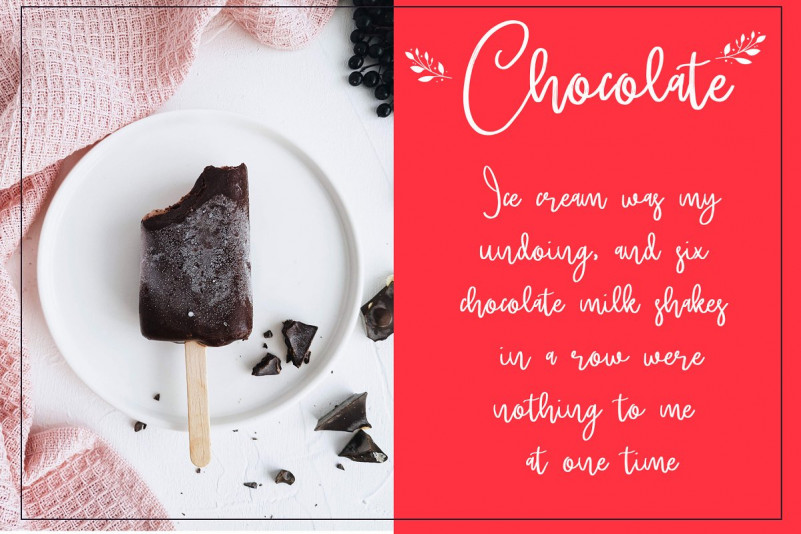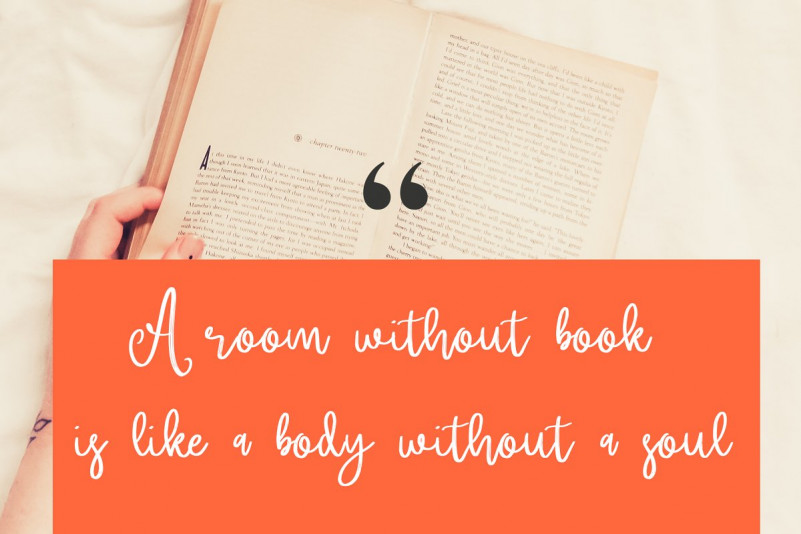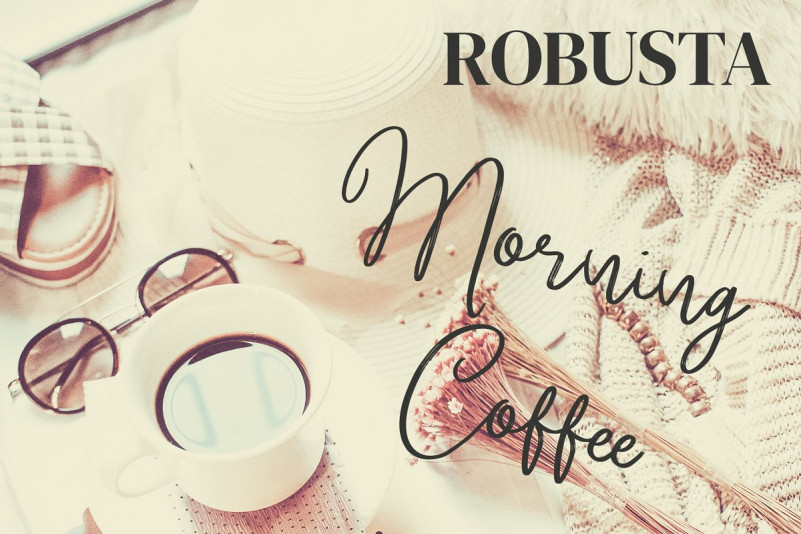
Brittney Script Font
Brittney Script – Demo Font
This is a romantic and modern calligraphy, ready to give your design a fresh and fabulous Style. Introducing Brittney Font. It’s a lovely modern calligraphy font. It’s combining the classic look of calligraphy with a more modern style.
Brittney is perfect for branding projects, logo, wedding designs, social media posts, advertisements, product packaging, product designs, label, photography, watermark, invitation, stationery and any projects.